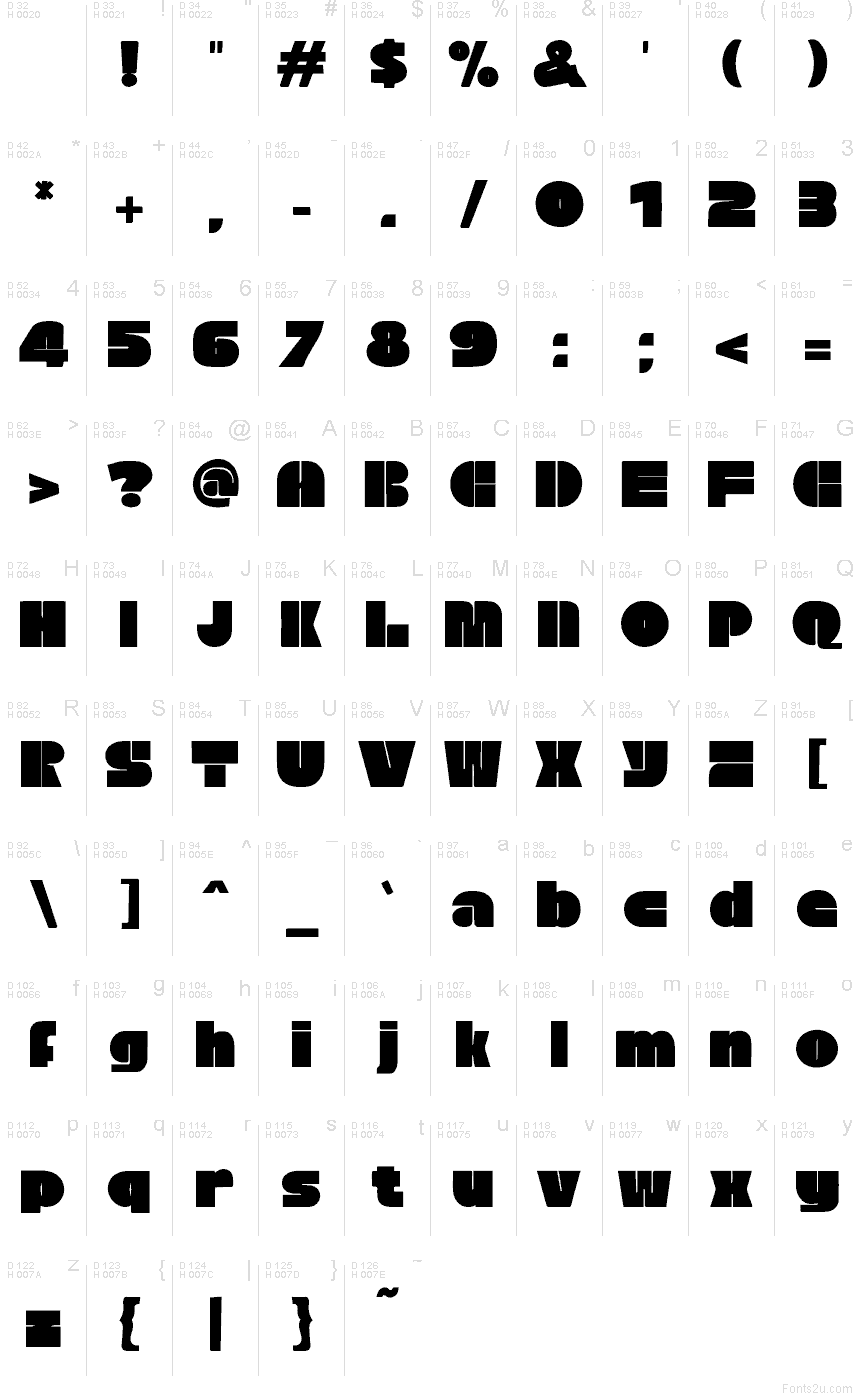
Kangaro font by BlackFridayFont FMF is a free groovy display typeface that hits like a bold poster from a 70s record shop. Its chunky, blocky letters lock together in a tight rhythm, while the rounded shapes and sliced counters give it a playful, almost rubber-stamped feel. The heavy, inky weight means every word feels like a logo, even at a glance.
Using Kangaro, this free font shines on music covers, festival posters, streetwear branding, bold packaging, retro-style social graphics, and loud event flyers. Its dense forms love big sizes where the curves and cutouts can really breathe. For body copy, pair Kangaro with a clean geometric sans in a lighter weight to keep things readable while letting the groovy title steal the spotlight.